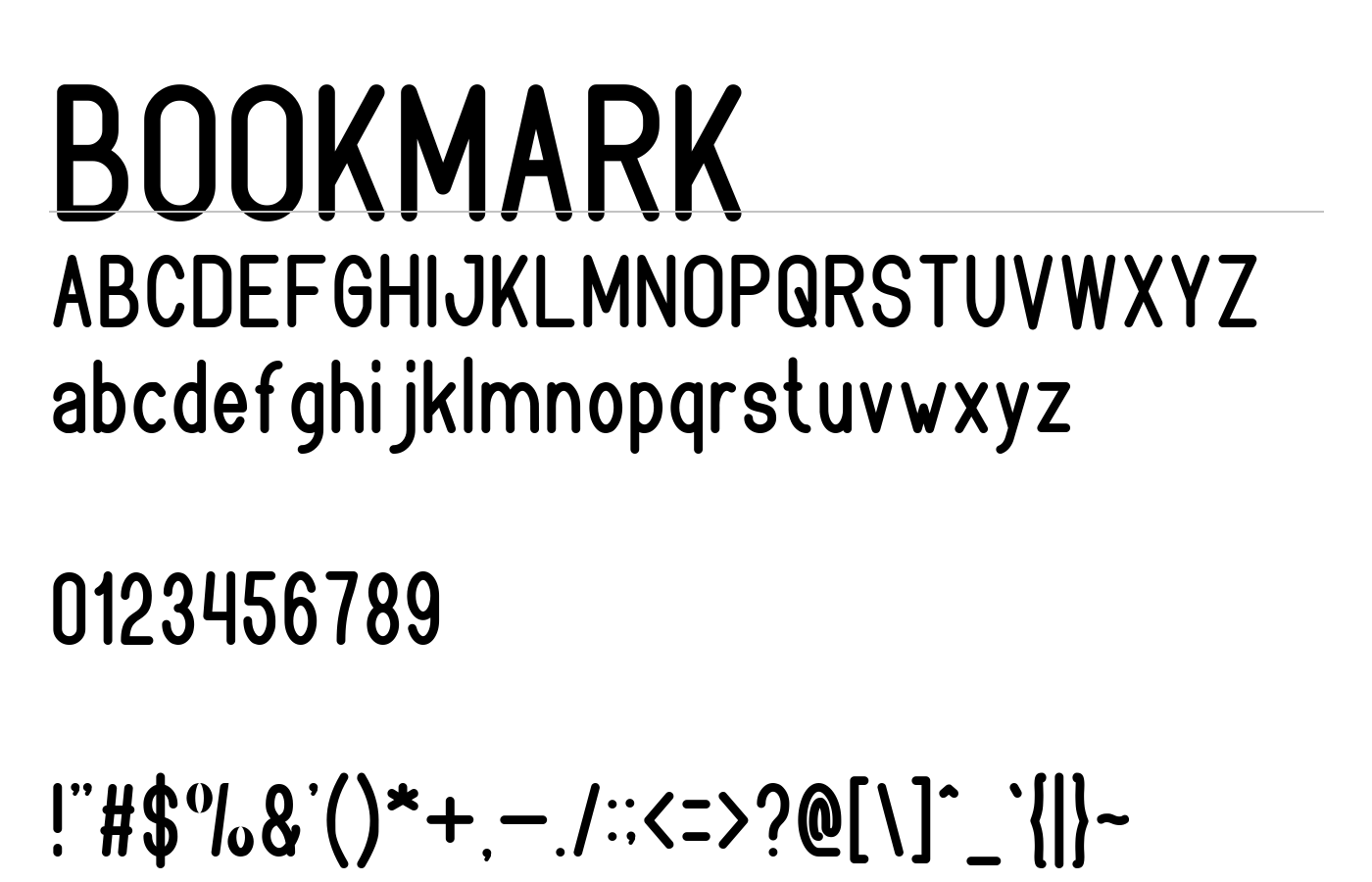
BOOKMARK is a narrow, rounded sans serif font with a friendly, modern feel. Its clean lines and consistent stroke weight make it highly legible while the rounded terminals add a touch of warmth, making it ideal for branding, editorial headlines, and digital use where clarity and approachability are key. This font works well in creative projects that need a contemporary yet inviting style.
BOOKMARK Font
About BOOKMARK Font